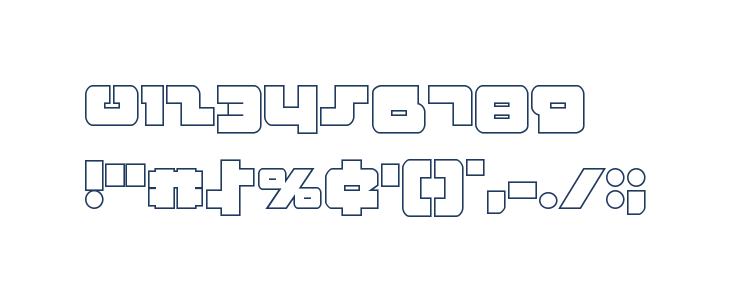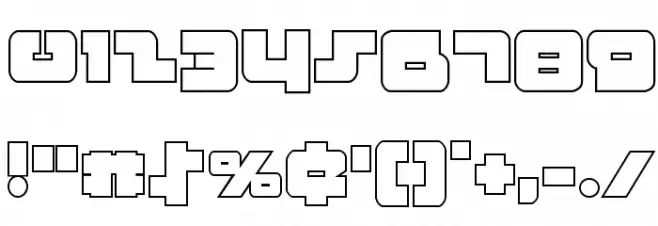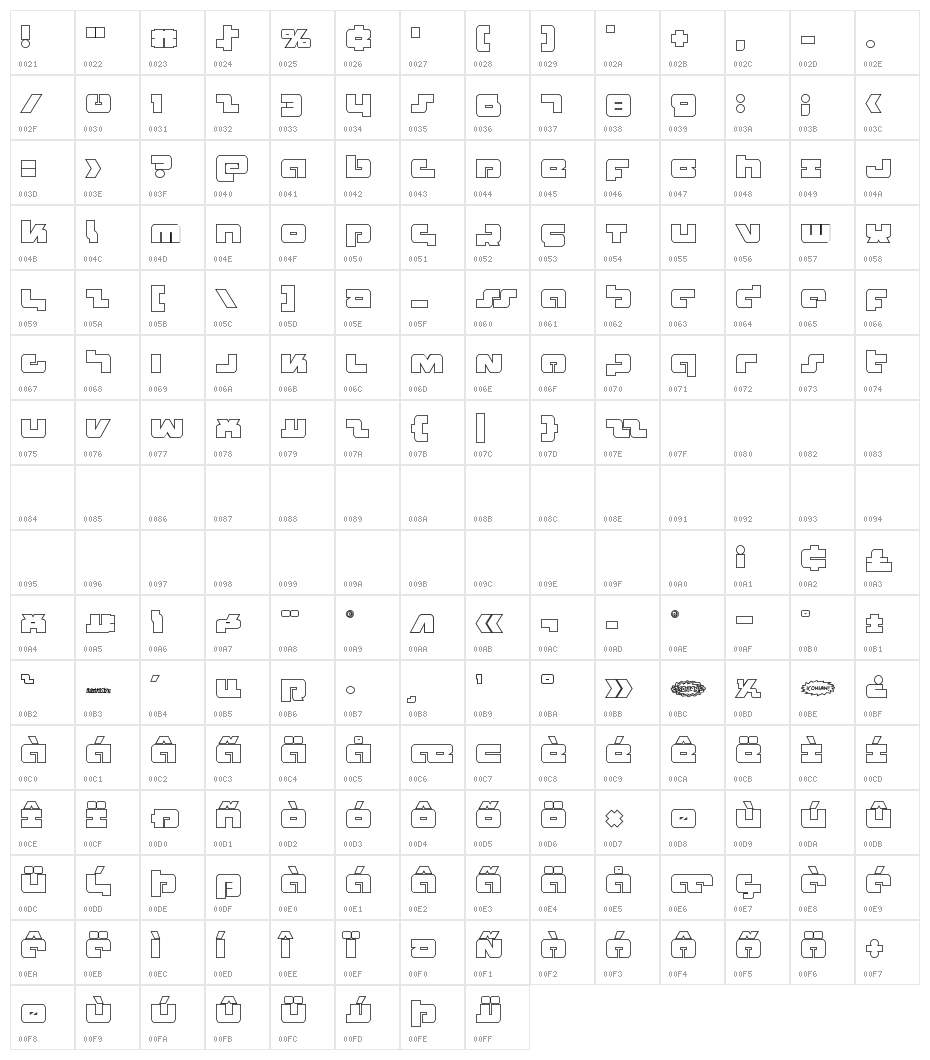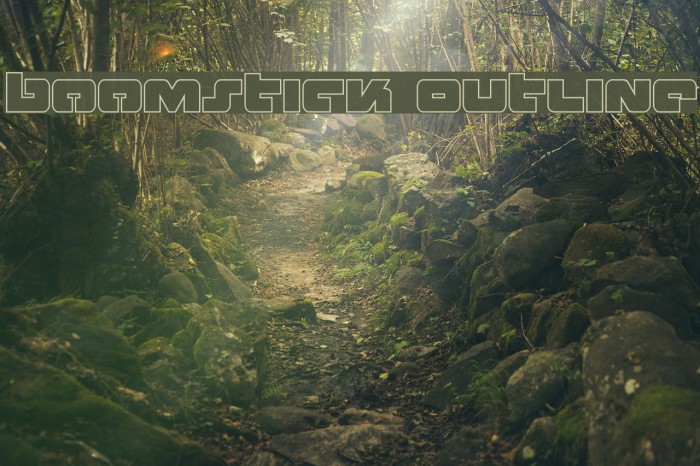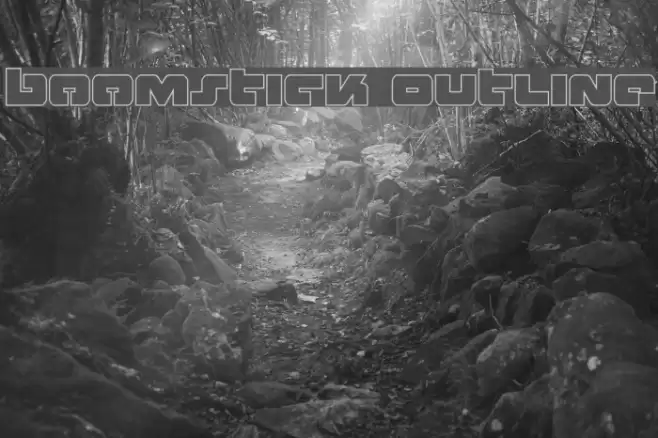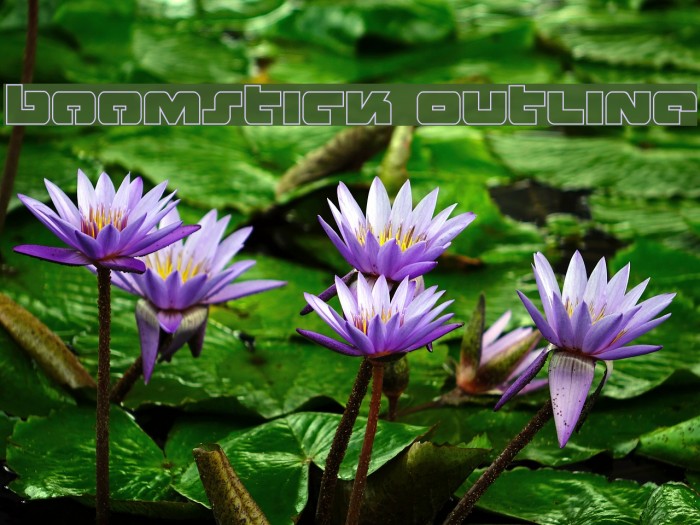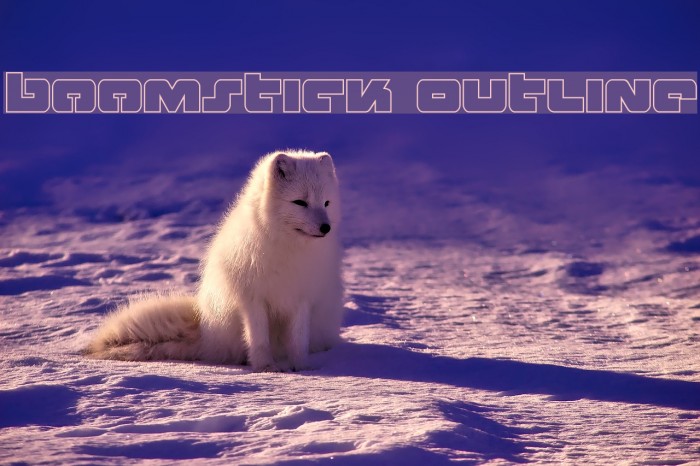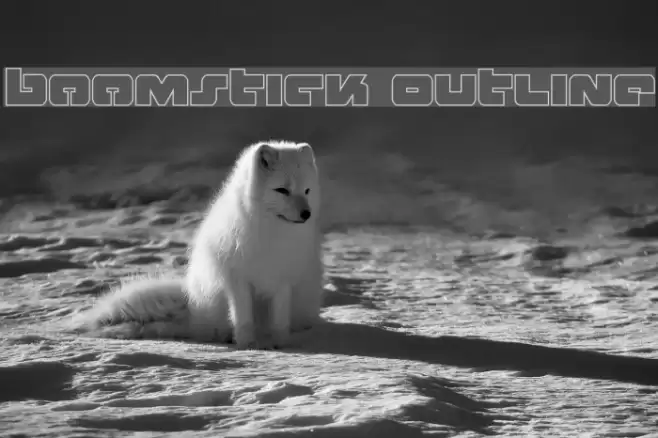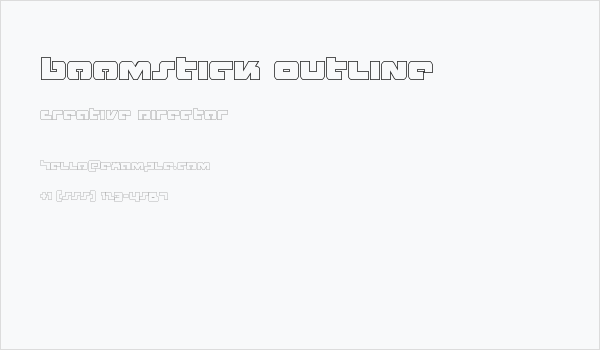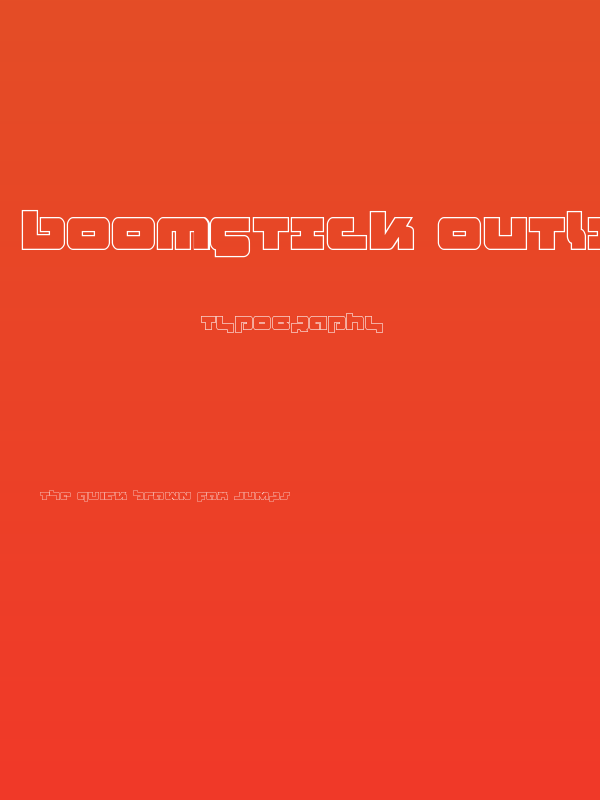
Boomstick Outline Font
Boomstick Outline Description
This font features a bold, geometric outline style with a futuristic and digital aesthetic. Each character is constructed with thick, uniform lines forming a distinct, blocky shape. The design is highly structured, with sharp angles and a consistent stroke width throughout. The uppercase and lowercase letters maintain a cohesive look, while the numerals and special characters complement the overall style. This font's outline nature gives it a unique, eye-catching appearance, making it suitable for modern and tech-oriented designs.